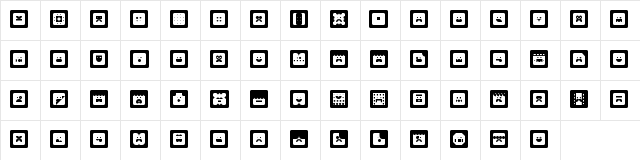
BlocFace Regular Free Font
BlocFace Regular
Designer: dasmuse
Design Context for BlocFace
BlocFace is a composed and adaptable typeface that performs quietly and consistently across a wide range of design contexts.